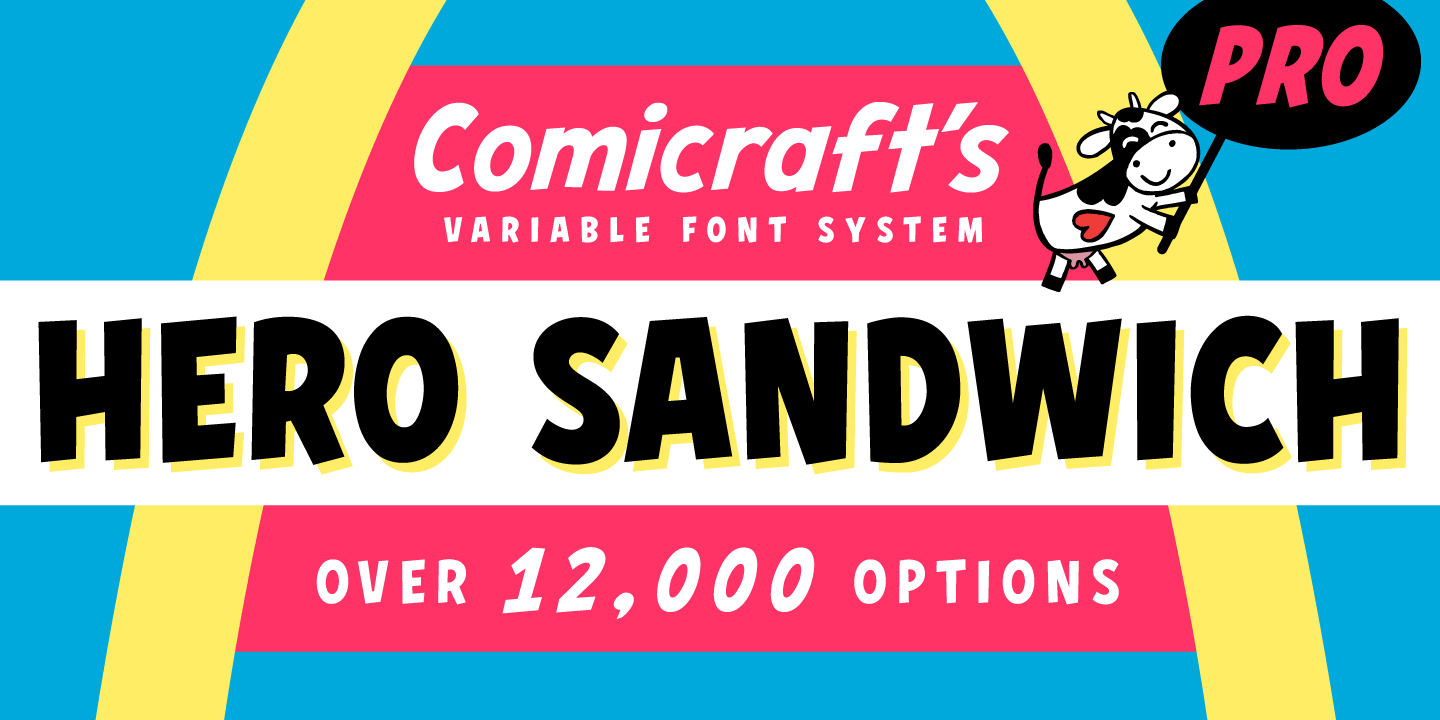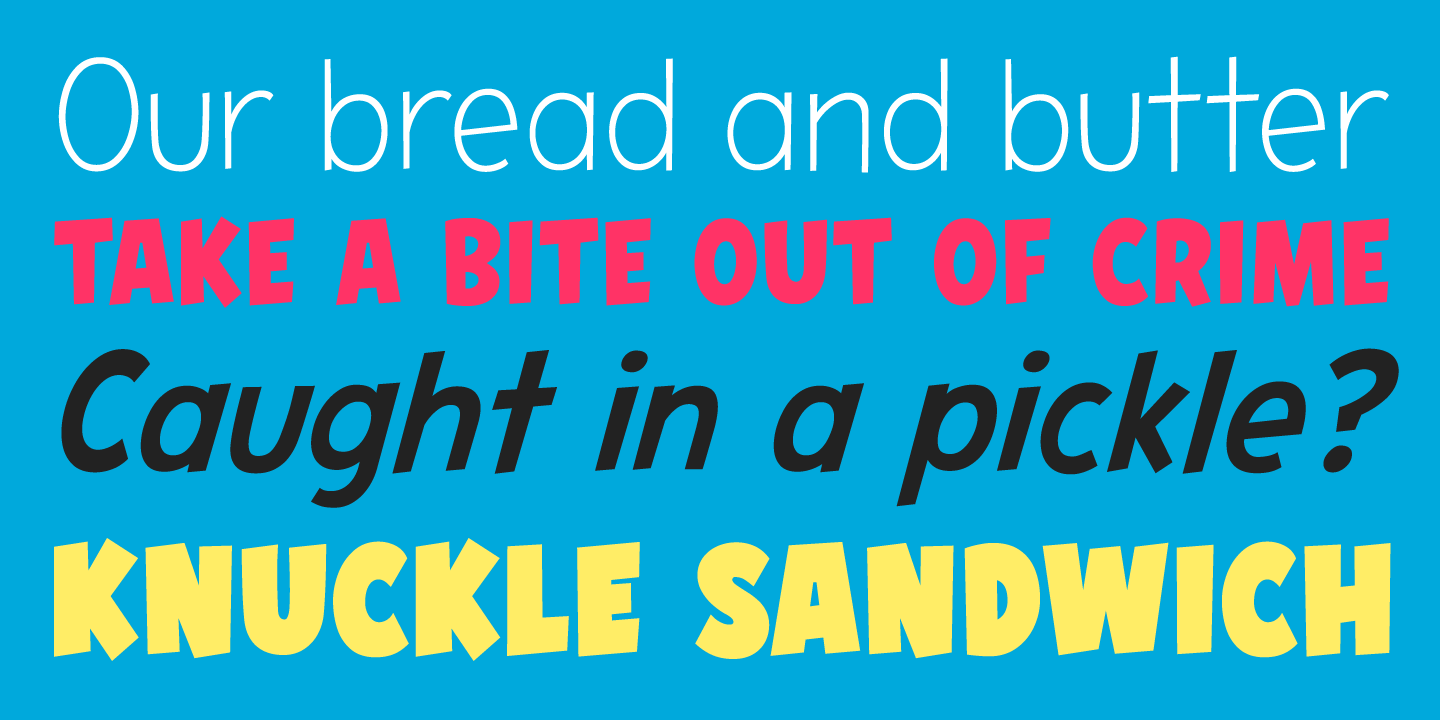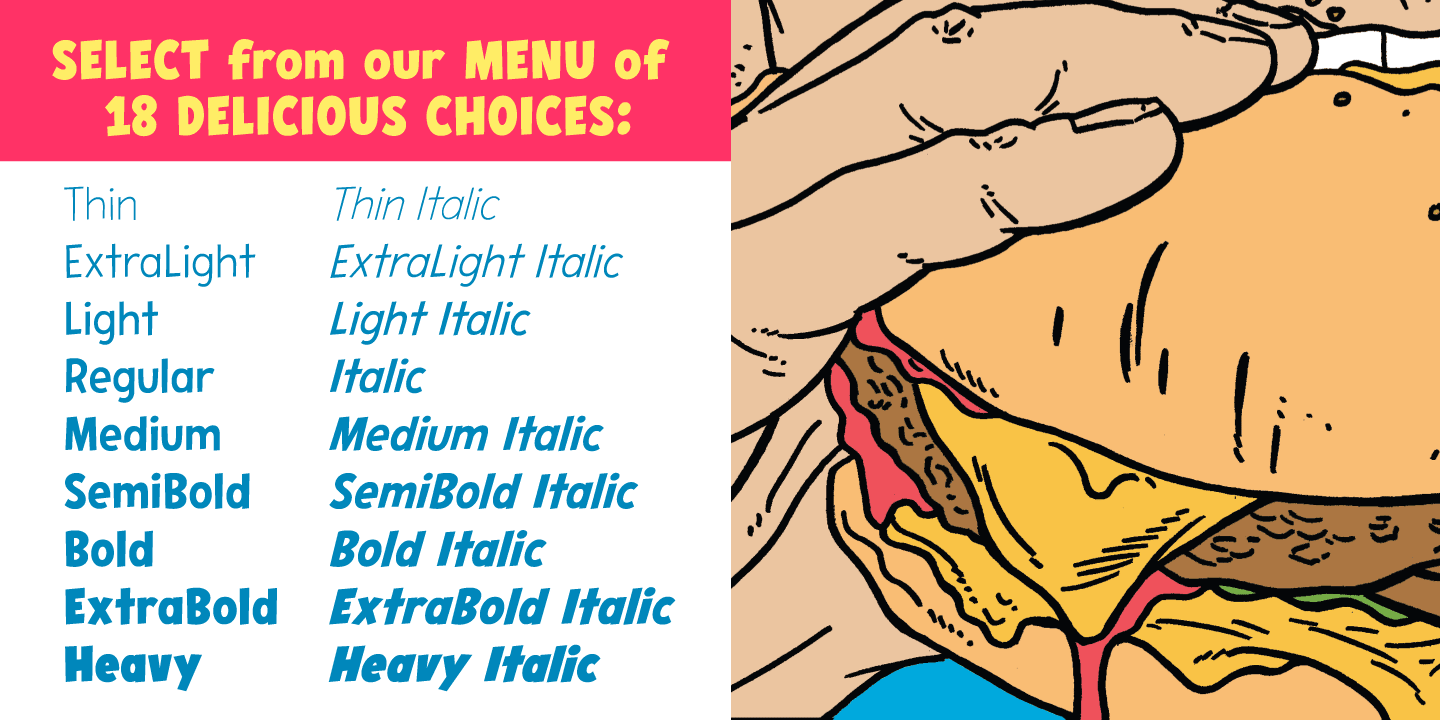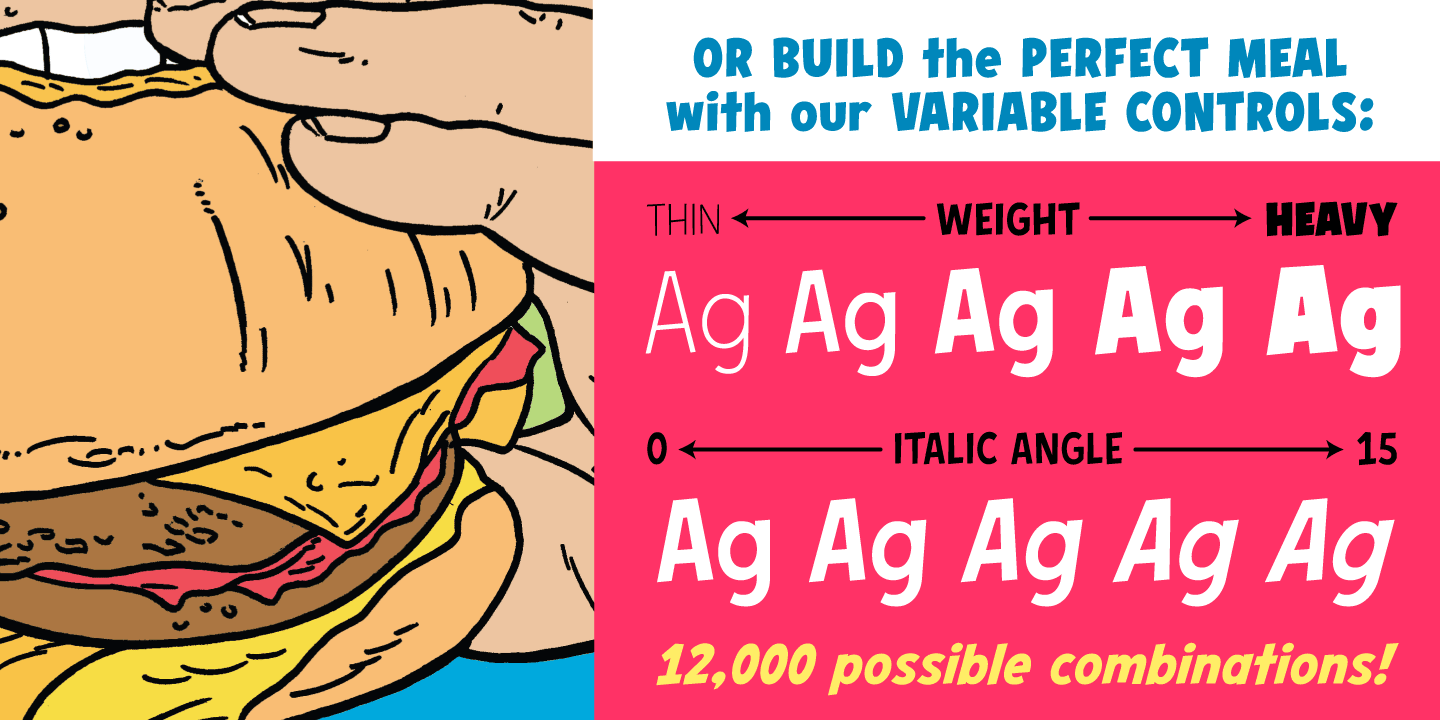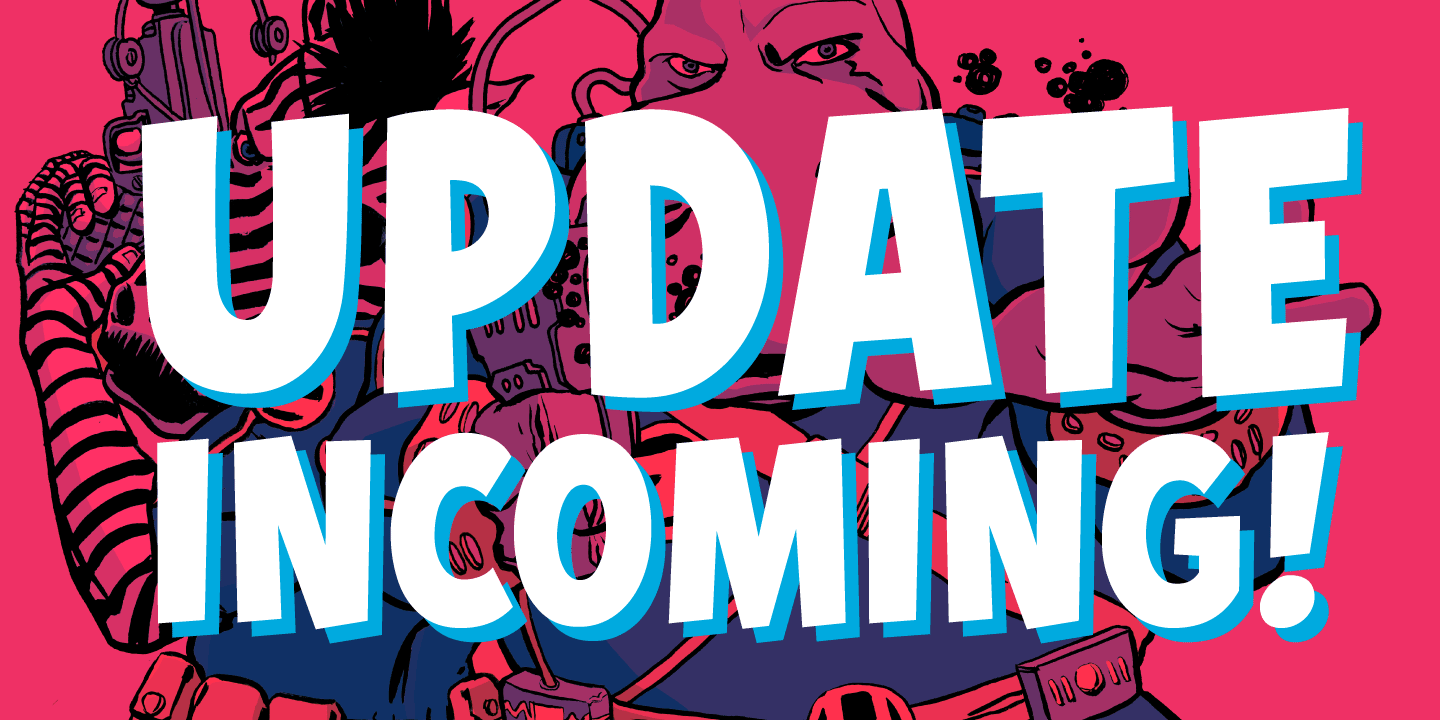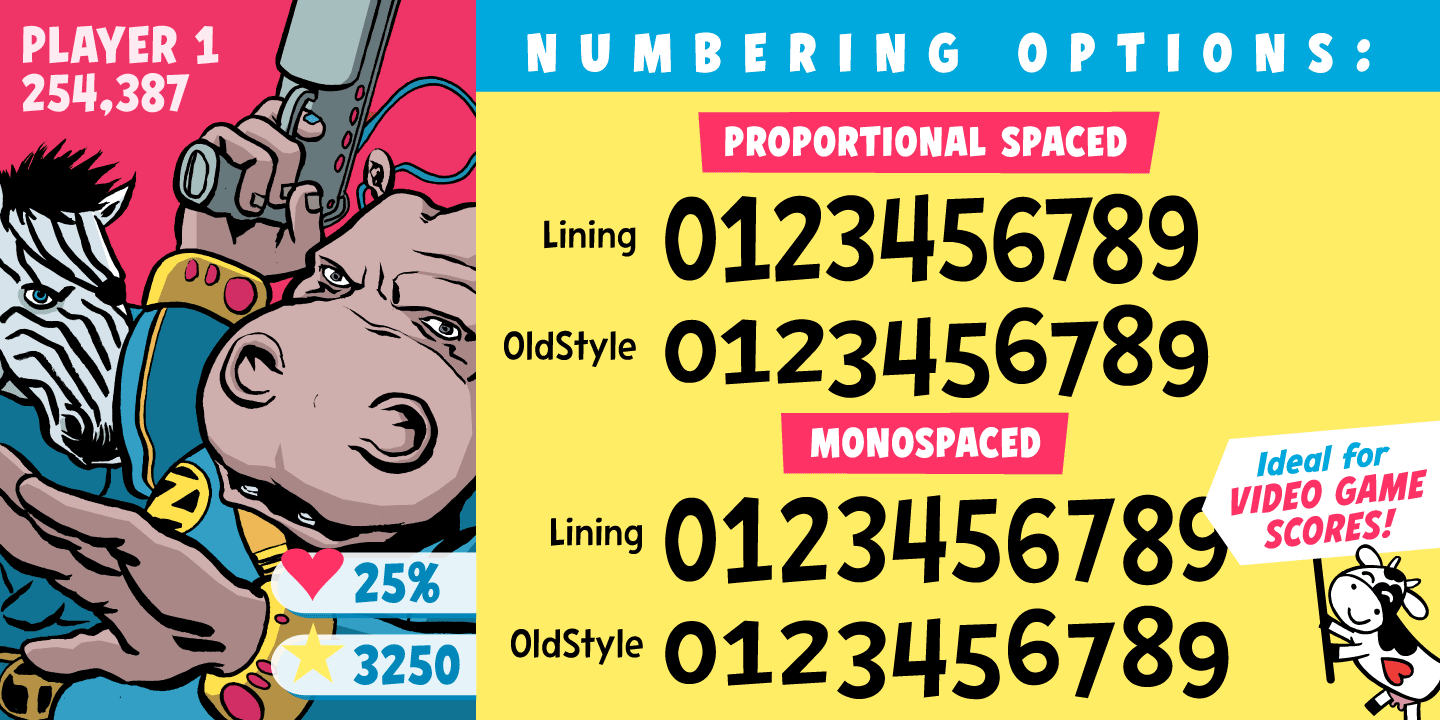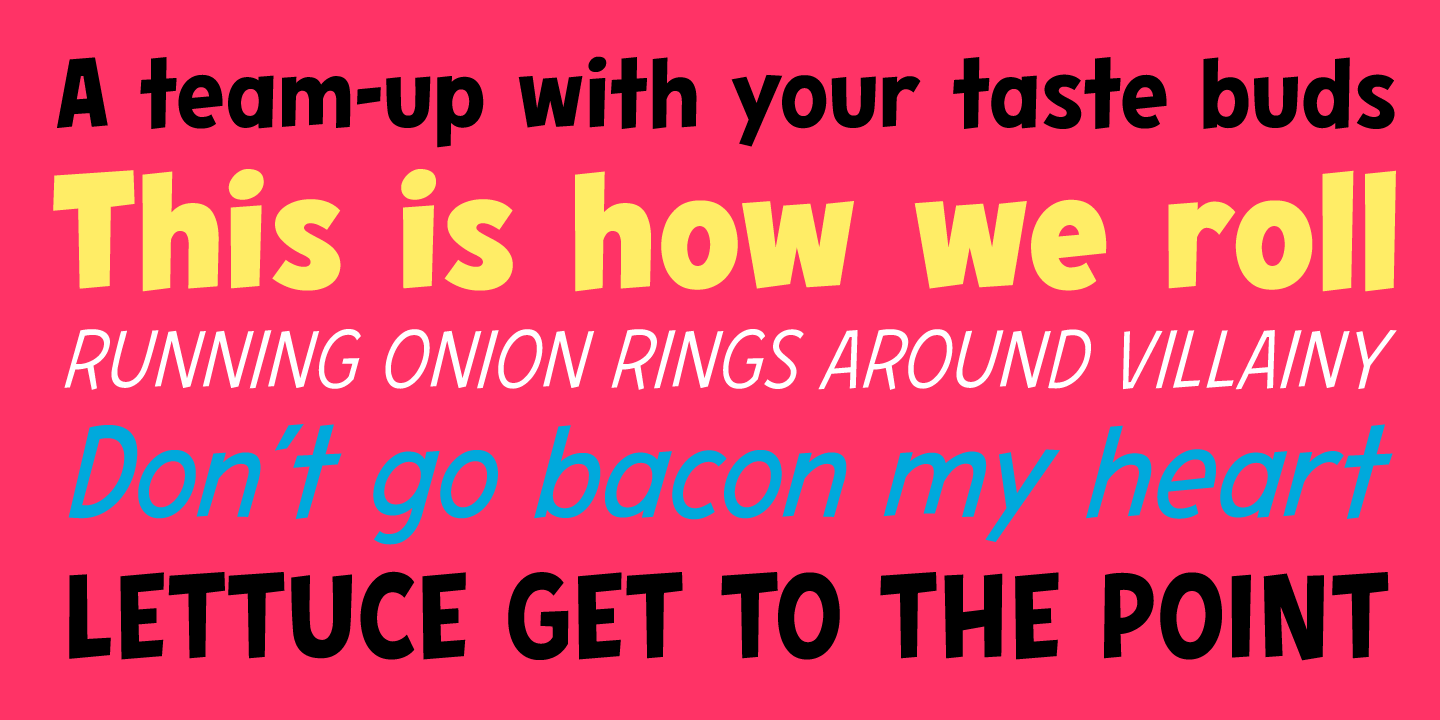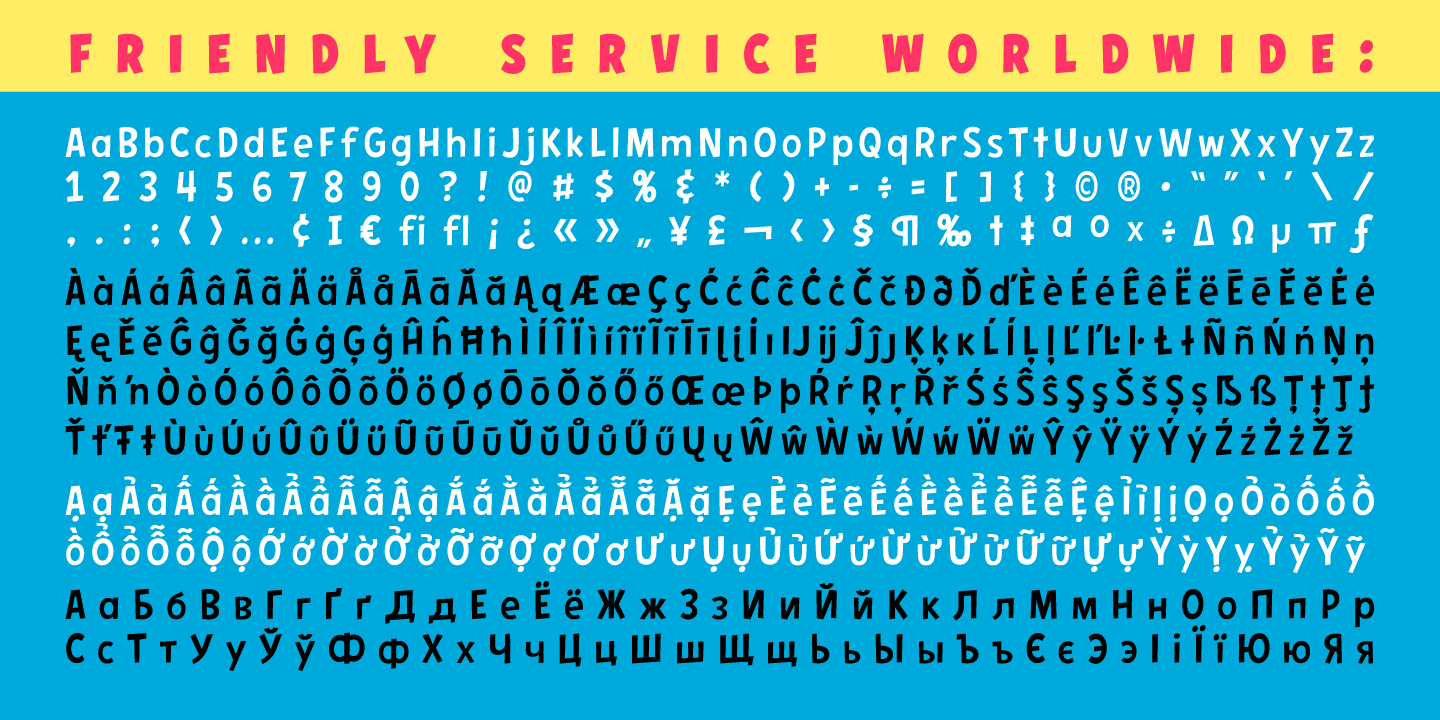
Hero Sandwich Pro
As comic book readers know all too well, team ups are every super hero’s bread and butter... when the brave and the bold are in a pickle, and super villains are running onion rings around them, here’s how they roll: They Meat! They Team-Up with your taste buds! They Fight Hunger!
Our original Hero Sandwich font has become a go-to for video game and app graphics, due to its easy readability and friendly demeanor. The new Pro version adds nine weights from Thin to Heavy, with matching italics, plus a versatile Variable Font to dial in your preferred combination of weight and italic slant. Each weight includes four numbering options and support for 222 languages, including Cyrillics.
So take a footlong bite out of crime, and make the subways safe again with our mouthwatering Hero Sandwich! Prepared with care and plastic gloves by those awfully nice chaps at the Comicraft deli.